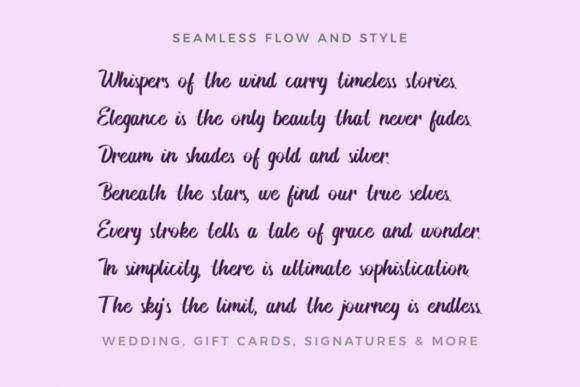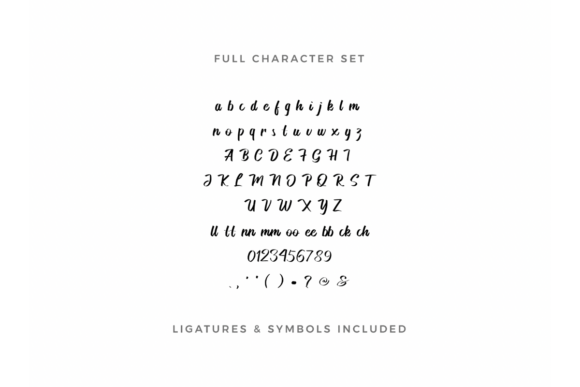
Introduction to Remington Font
Have you ever been stuck on a creative project, searching for the perfect font to bring your vision to life? That’s where the magic of the Remington Font comes in – a beautiful script font that effortlessly combines the charm of handwriting with the sophistication of hand lettering. Imagine a typeface that effortlessly blends organic fluidity with structured elegance, making your written words feel like a work of art.
As a designer, you know the value of having a high-quality design resource at your fingertips. The Remington Font is more than just a digital download – it’s a versatile tool that can elevate your creative project from ordinary to extraordinary. Whether you’re working on a branding project, a marketing campaign, or a personal art piece, the Remington Font is the perfect companion to help you achieve your artistic vision.
Key Features of Remington Font
- High-quality font with a transparent background, ideal for creative projects.
- Available in 4 font styles: Regular, Italic, Bold, and Bold Italic, providing versatility for various design applications.
- Perfect for use in logos, branding, and marketing materials, where a unique and creative touch is required.
Honest Review: Remington Font
I recently stumbled upon the Remington Font while searching for a design resource for a creative project. The font caught my eye with its unique blend of classic and modern elements. One of the standout features of Remington Font is its high quality, making it perfect for any design task, from print to digital media.
- ✨ High-quality font with detailed design elements
- ✨ Suitable for both print and digital media
- ⚠️ The font may not be suitable for designs requiring a transparent background, as the design elements may not display well in this format
- ⚠️ Limited customization options, which may be a drawback for some designers
Overall, I was impressed with the Remington Font, and I would definitely consider using it for future creative projects. Its unique design elements and high quality make it a valuable resource for designers. While it may have a few limitations, I believe the benefits outweigh the drawbacks.
How to Use Remington Font
The Remington Font is a high-quality design resource perfect for creative projects. With a transparent background, it’s easy to integrate into various design platforms.
Tips for Getting the Most Out of Remington Font
For optimal results, use the Remington Font in combination with other high-quality design elements. Experiment with different font sizes and styles to create visually appealing designs.
The Remington Font is suitable for a variety of creative projects, including:
- Marketing materials and advertisements
Dancing Script Font is a high-quality, handwritten font that’s ideal for creative projects, such as magazine covers, advertisements, or packaging design. It’s a popular design resource that offers a transparent background, making it easy to customize. Dancing Script Font is a great alternative to Remington Font when you need a more playful and energetic feel.
Lobster Font is a unique, handwritten font that’s perfect for designing logos, branding materials, or any project that requires a touch of whimsy. It’s a free download that’s available in various formats, making it easy to incorporate into your design. Lobster Font is a great choice when you want a more casual and laid-back feel, similar to Remington Font, but with a more quirky twist.